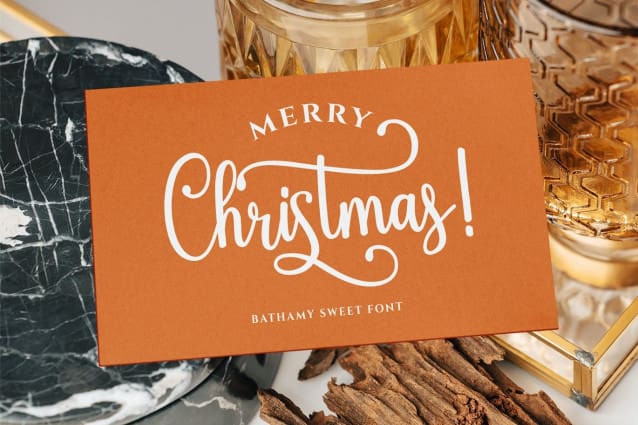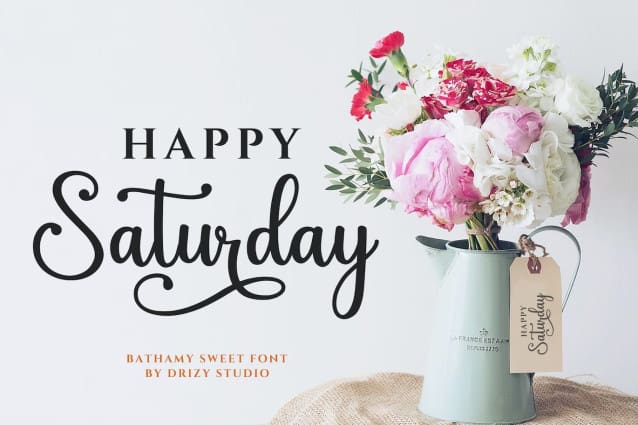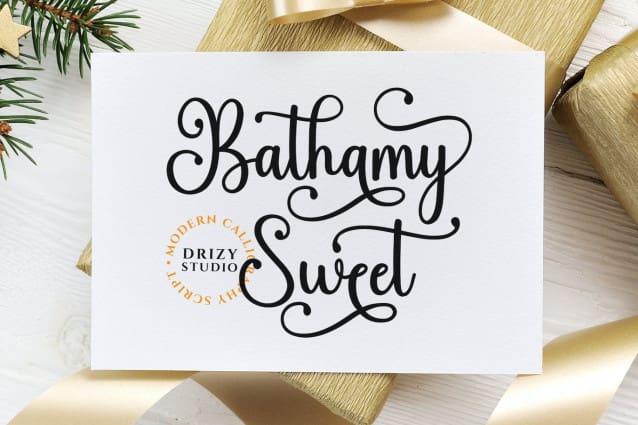
Bathamy Sweet Font
Bathamy Sweet Font is a modern calligraphy script from Drizy Studio. Offering all the styles you need for warm, welcoming yet elegant themes, especially for Christmas projects.
BathamySweet Features: Uppercase and lowercase Punctuation and numbers Multilingual support Stylistic ligatures Alternates